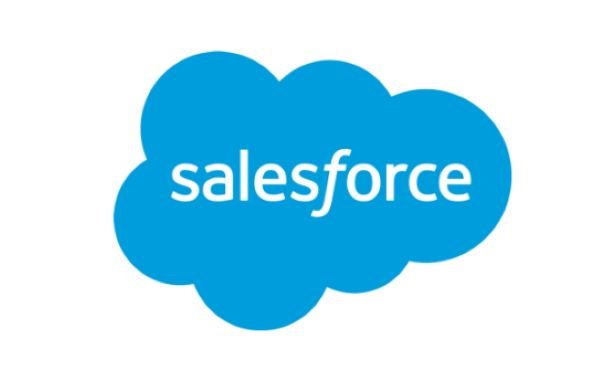
Salesforce Font
Salesforce font — the Aller typeface, a modern versatile sans-serif by Dalton Maag — is the typographic identity of a company that invented the cloud CRM category in 1999 and has spent the subsequent decades proving that enterprise software need not feel like a punishment. Aller’s clean, open letterforms with their slightly friendly proportions communicate the same values Salesforce has built its brand around: professional capability delivered in a manner that humans actually want to engage with, the idea that power and approachability are not in opposition in a customer relationship management platform or in the typography that represents it. The freely available Salesforce Font brings this modern, open, enterprise-friendly register to creative work.